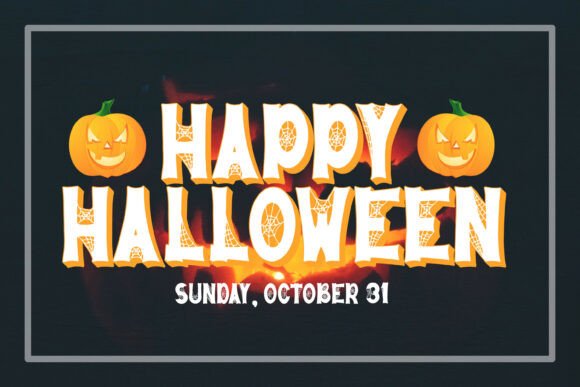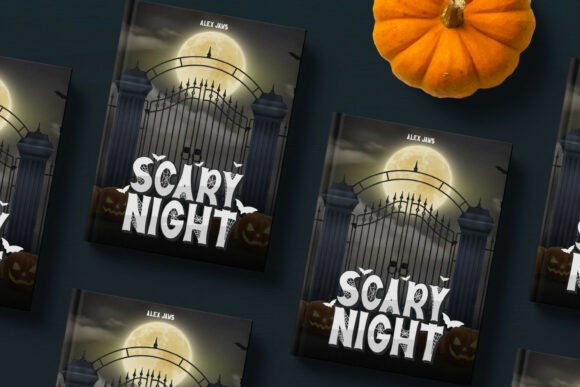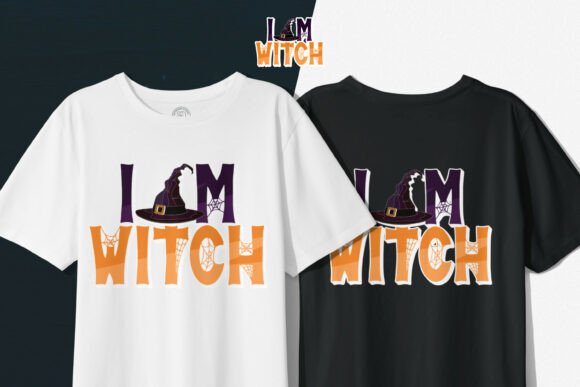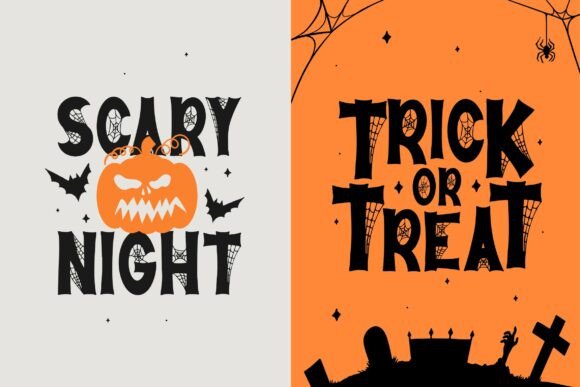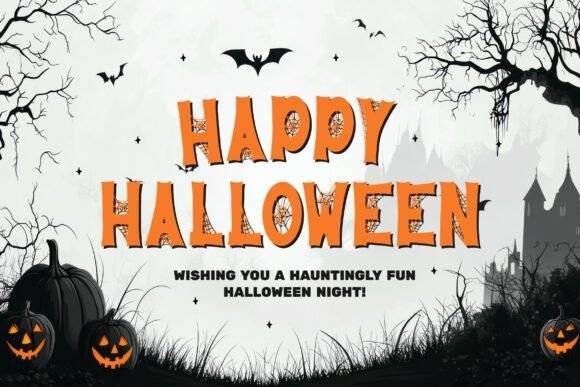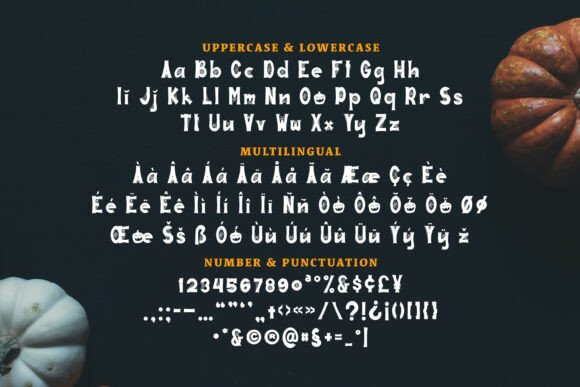
Introducing Ghostown Font: The Spookiest Halloween Font for Your Design Needs
Are you looking for a font that will add a spooky touch to your designs this Halloween season? Look no further than Ghostown Font, a dripping seasonal Halloween font that’s perfect for any design that requires a horror or scary look. In this article, we’ll dive into the features and benefits of Ghostown Font, and explore how you can use it to create eye-catching designs that will leave a lasting impression.
What is Ghostown Font?
Ghostown Font is a quirky, hand-drawn Halloween font that’s designed to add a touch of horror and whimsy to your designs. With its cobweb motif and dripping seasonal style, this font is perfect for creating spooky and fun designs that will capture the essence of the Halloween season. Whether you’re designing horror movie posters, product packaging, or Halloween party invites, Ghostown Font is the perfect choice.
Features of Ghostown Font
So, what makes Ghostown Font so special? Here are just a few of its key features:
- Quirky and hand-drawn design: Ghostown Font has a unique, hand-drawn design that’s full of character and personality.
- Cobweb motif: The font’s cobweb motif adds a touch of spookiness and whimsy to your designs.
- Dripping seasonal style: The font’s dripping seasonal style gives it a creepy, eerie feel that’s perfect for Halloween designs.
- Eye-catching headlines and graphics: Ghostown Font is designed to create eye-catching headlines and graphics that will grab attention and leave a lasting impression.
Uses for Ghostown Font
Ghostown Font is a versatile font that can be used for a wide range of design projects, including:
- Horror movie posters: Create eye-catching posters for horror movies or TV shows.
- Product packaging: Add a spooky touch to product packaging for Halloween-themed products.
- Halloween party invites: Create spooky and fun invitations for Halloween parties.
- Trick or treat signs: Design eye-catching signs for trick or treat collections.
- Haunted house posters: Create spooky posters for haunted houses or haunted attractions.
- Spooky book covers: Design eye-catching covers for horror or Halloween-themed books.
- Invitations: Create spooky and fun invitations for Halloween events or parties.
- Branding: Use Ghostown Font to create a spooky and memorable brand identity.
- Headlines: Use the font to create eye-catching headlines for Halloween-themed articles or blog posts.
- Apparel: Design spooky and fun apparel for Halloween, such as t-shirts or hoodies.
- Comics: Use Ghostown Font to create spooky and fun comic books or graphic novels.
- Cover books: Design eye-catching covers for horror or Halloween-themed books.
- Cards: Create spooky and fun cards for Halloween, such as greeting cards or invitations.
Why Choose Ghostown Font?
So, why choose Ghostown Font for your Halloween design needs? Here are just a few reasons:
- Unique and eye-catching design: Ghostown Font has a unique and eye-catching design that’s sure to grab attention.
- Spooky and fun: The font has a spooky and fun vibe that’s perfect for Halloween designs.
- Packed with character: Ghostown Font is packed with character and personality, making it perfect for designs that require a touch of whimsy.
In conclusion, Ghostown Font is a spooky and fun Halloween font that’s perfect for any design that requires a horror or scary look. With its quirky, hand-drawn design and cobweb motif, this font is sure to add a touch of whimsy and horror to your designs. Whether you’re designing horror movie posters, product packaging, or Halloween party invites, Ghostown Font is the perfect choice. So why wait? Download Ghostown Font today and start creating spooky and fun designs that will leave a lasting impression.